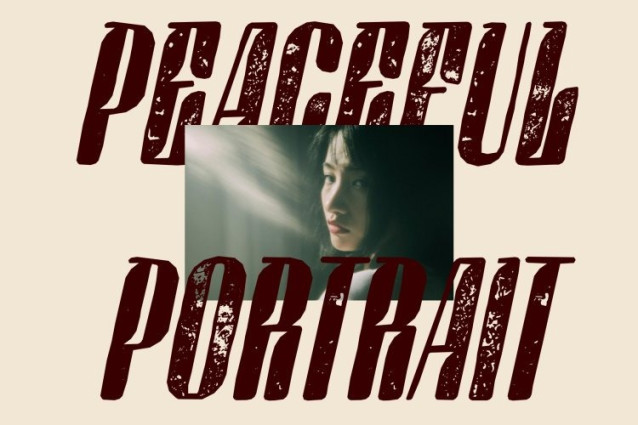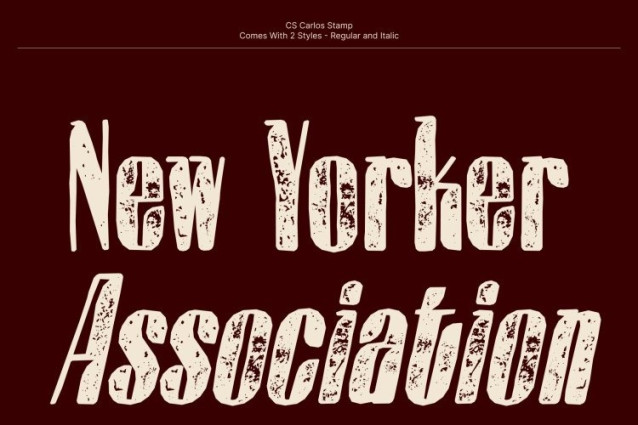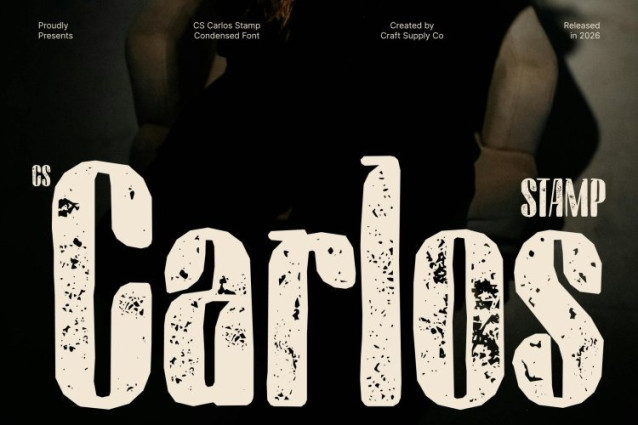
CS Carlos Stamp Font
CS Carlos Stamp Font – This is a modern sans-serif font defined by its bold, condensed letterforms that deliver a strong visual presence within a compact structure. The narrow proportions allow the typeface to communicate power and clarity while efficiently fitting into limited horizontal space. Enhanced with a subtle stamp effect, the font gains a textured, vintage character that adds depth and personality to its bold design.
Space-Efficient Design with Distressed Character
The condensed construction maximizes space without sacrificing readability, making it ideal for impactful typography in tight layouts. The stamp effect introduces slightly worn edges and ink-like textures, creating the impression of traditional stamped printing. This detail adds a handcrafted, retro feel that enriches the otherwise modern structure of the font.
Bold Efficiency for Impactful Typography
This font maintains a balance between strength and practicality. Its compact proportions ensure strong visibility while the textured surface gives it a distinctive and expressive visual identity. The result is a font that feels both functional and stylistically unique.
Perfect for Posters, Branding, and Editorial Layouts
Ideal for advertising, posters, packaging, headlines, and editorial design, this font performs beautifully wherever bold messaging is required in limited space. Its condensed power combined with vintage stamp texture creates typography that feels confident, efficient, and visually memorable.